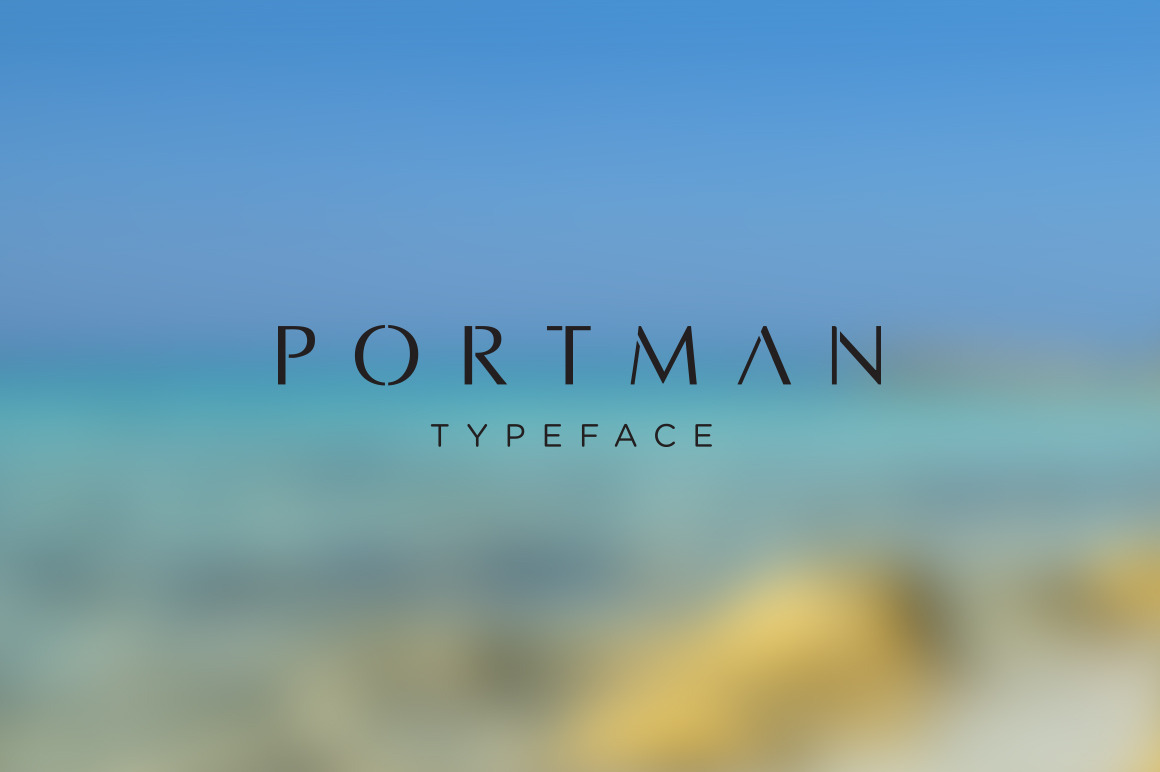
Portman Typeface
Designer: Oleg Urazovsky Design date: 2016
Portman is a modern, geometric typeface which was designed in 2016 by Oleg Urazovsky. The font is good for titles and logos.